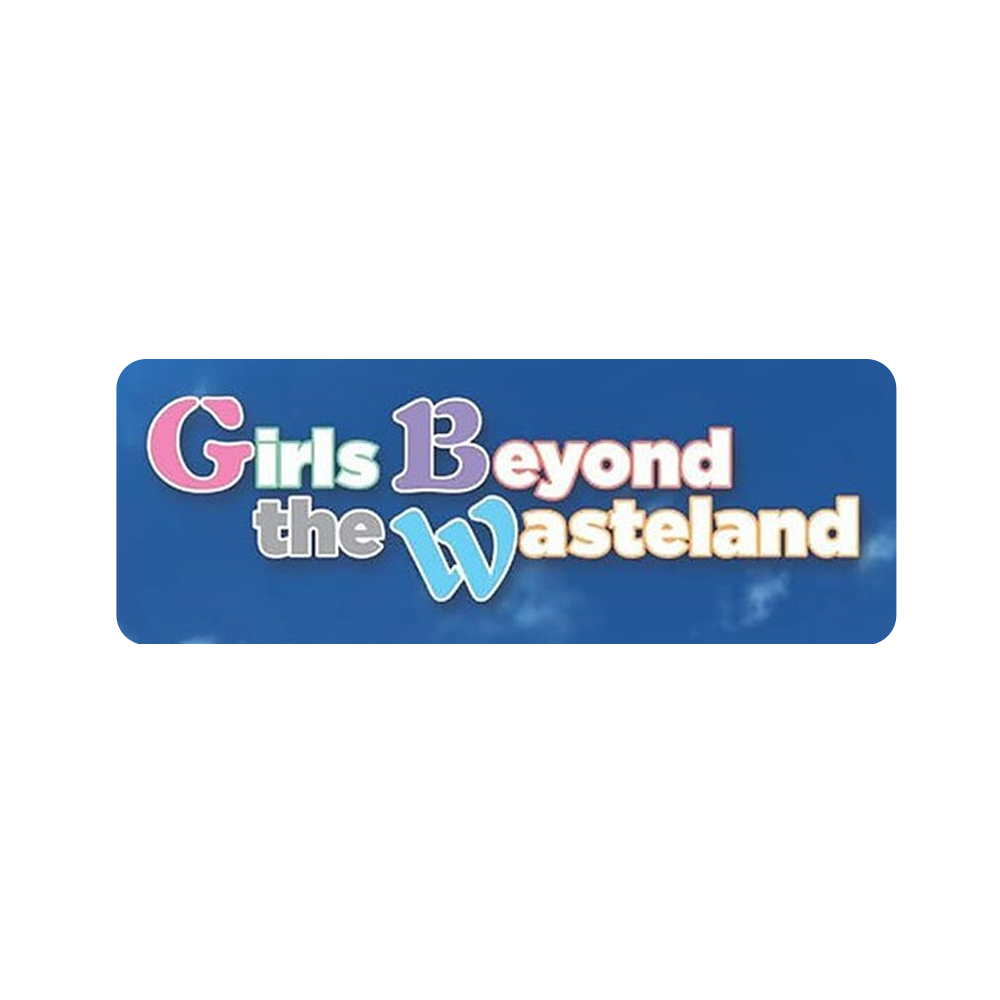
Girls Beyond the Wasteland Font
BookGirls Beyond the Wasteland is a light novel series written by Koegakiko and illustrated by Eretto. It is a slice-of-life story about a group of high school students who are passionate about creating an original video game. The series has been adapted into a manga and anime series that premiered on January 7, 2016.
The anime's title is written in the sans serif Gotham Ultra font for the lowercase letters and Auriol Black for the three capital letters. The art nouveau painter and designer Georges Auriol's handwriting served as the inspiration for Peignot's Auriol decorative serif, which was introduced in 1901.